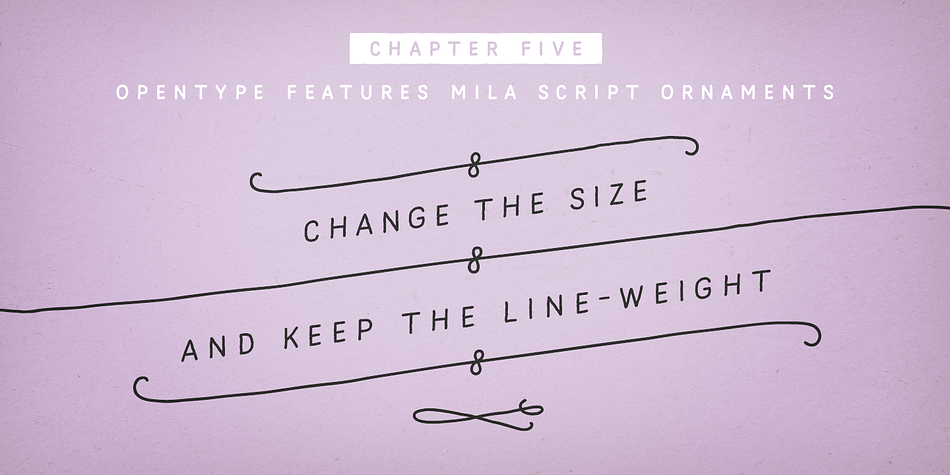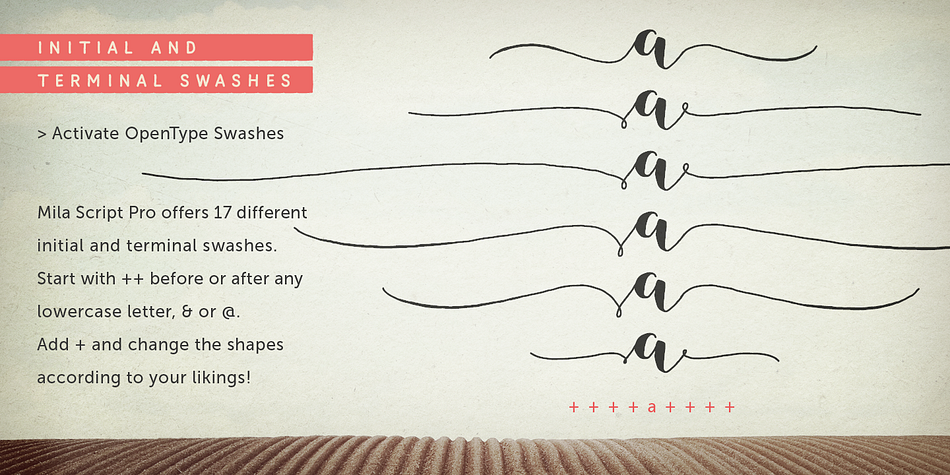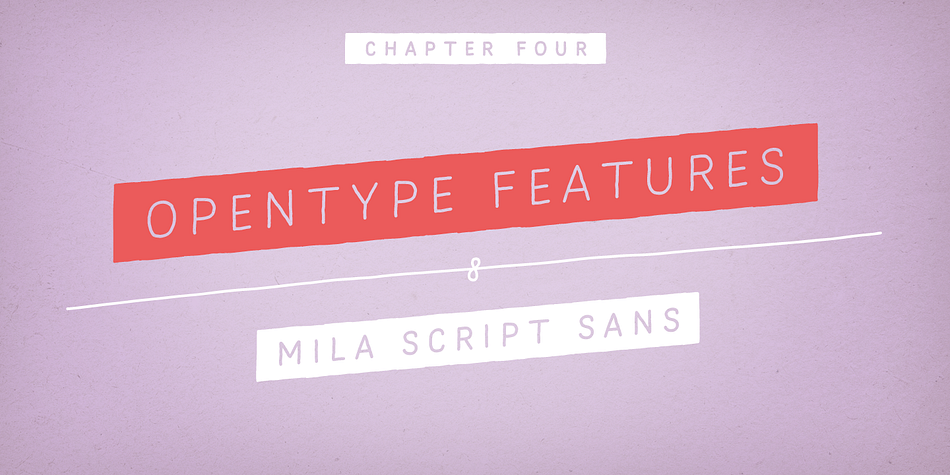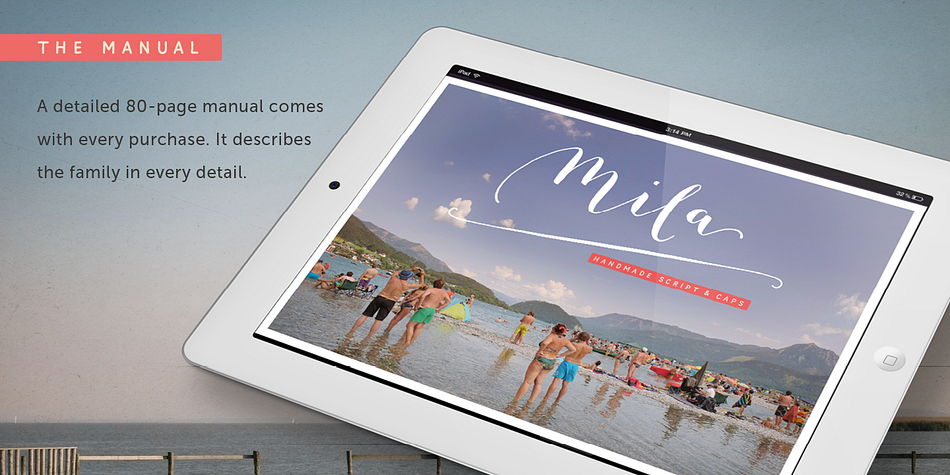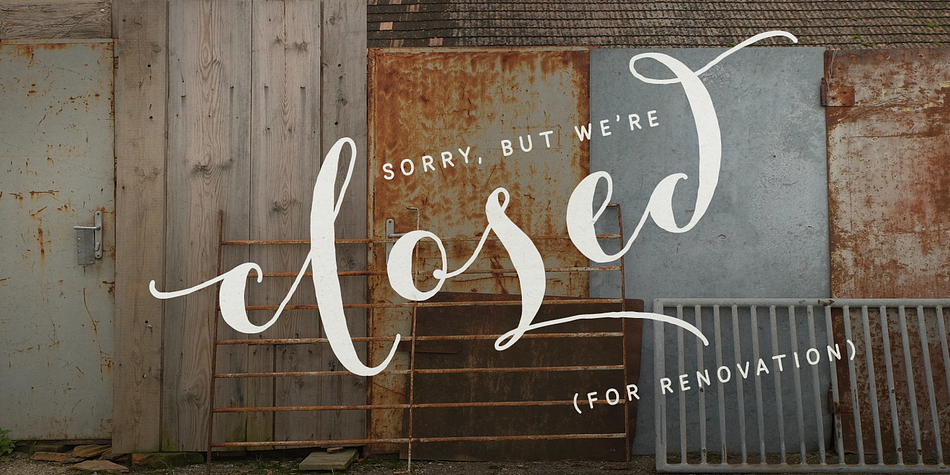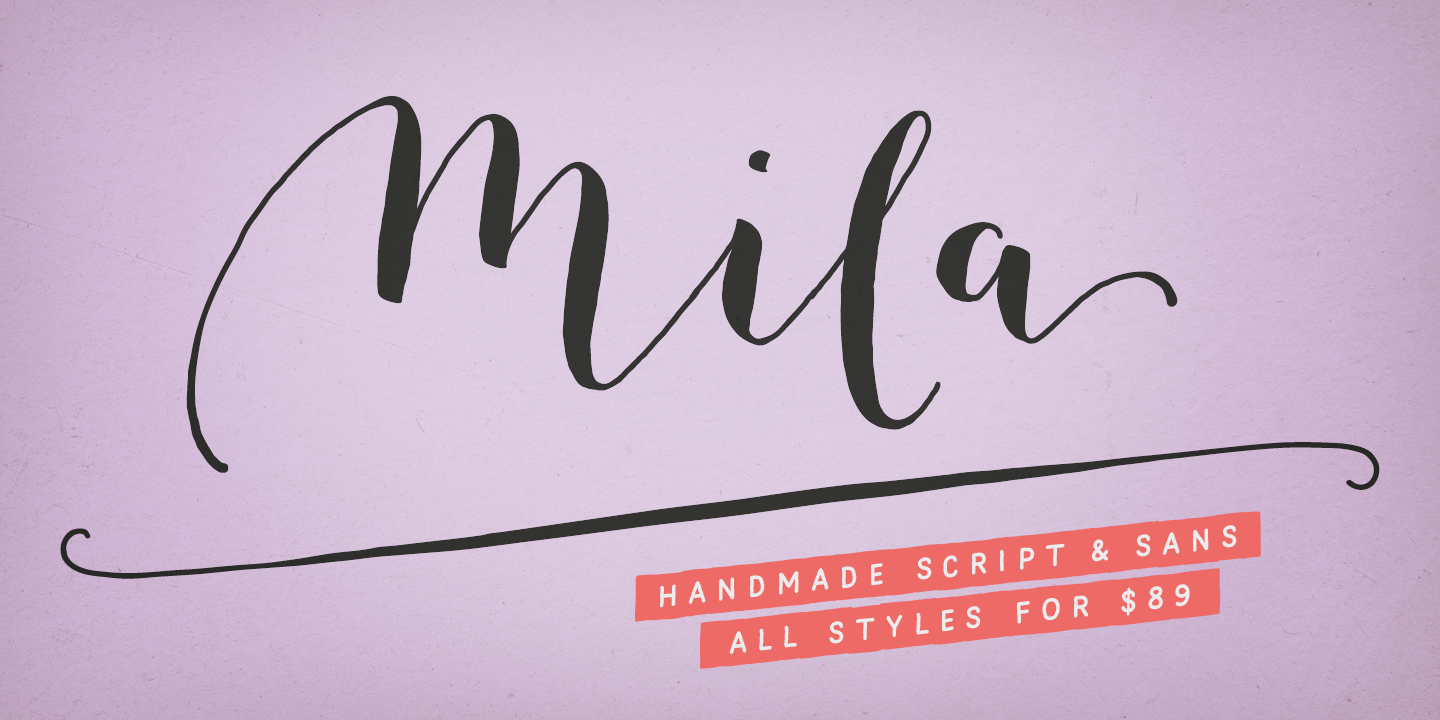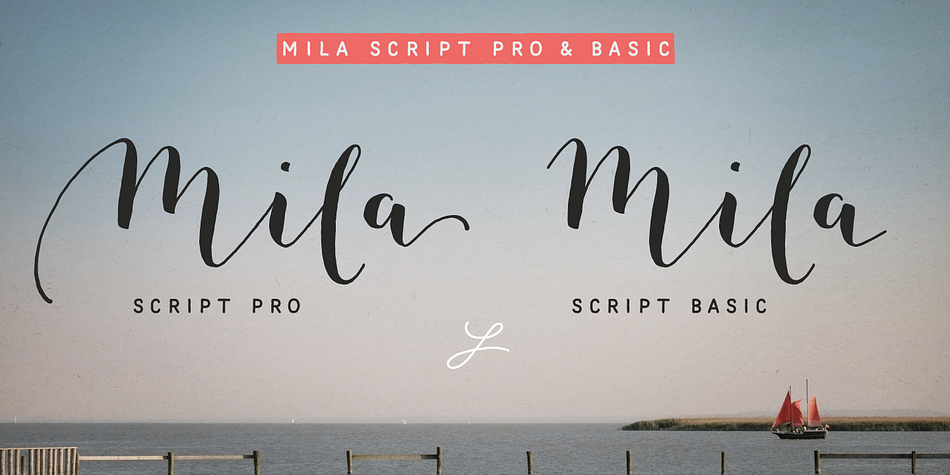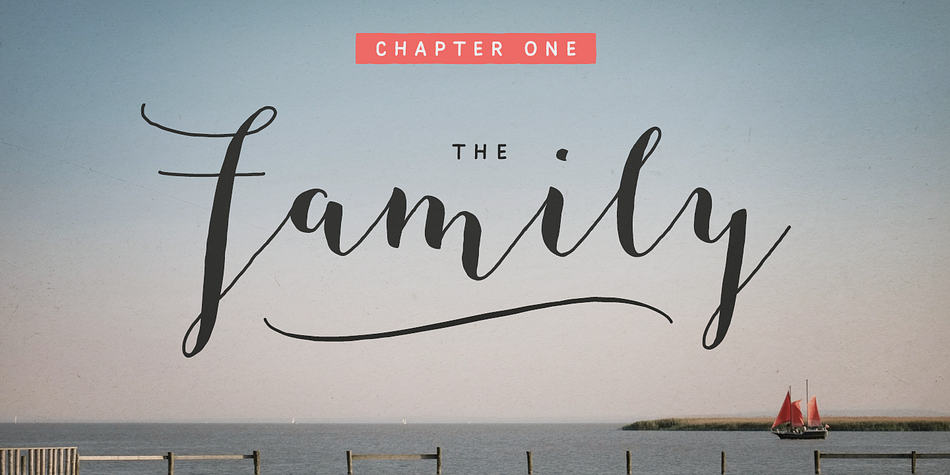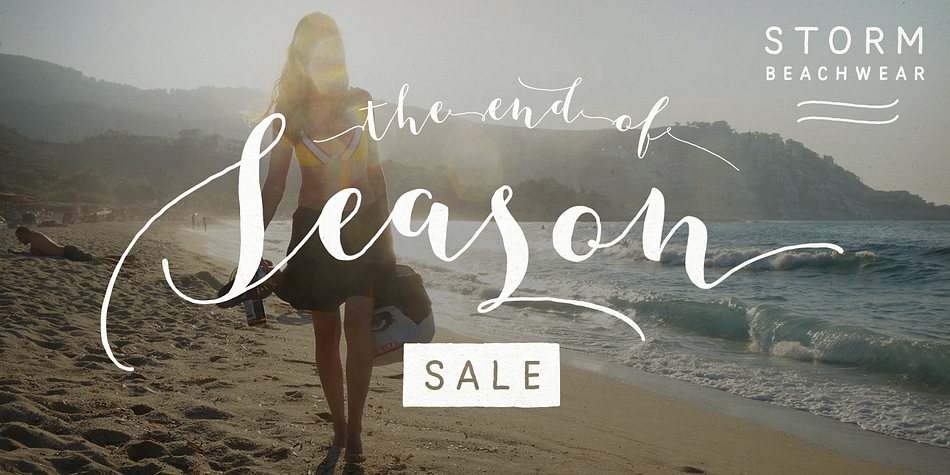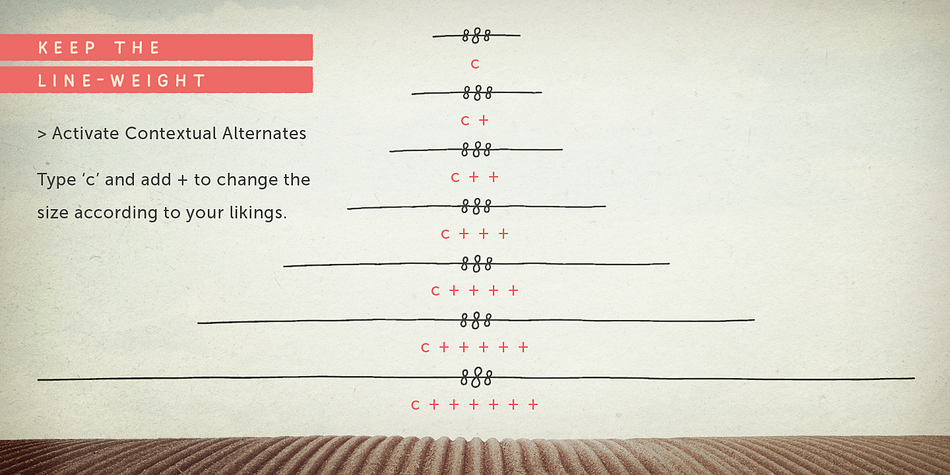
Designed by Georg Herold-Wildfellner, Mila Script Pro is a multiple classification font family. This typeface has six styles and was published by FaceType.
Mila Script Pro & Basic
Mila Script Pro is a handmade brush script with round and soft letterforms, a low x-height and jumping baseline. Smart OpenType features care about all letterforms and choose between connected and non-connected styles. AutomaticSwashControl adjusts the swashy letters to the available white space. It’s installed within Mila’s main features OpenType Contextual-Alternates, Swashes and Titling-Alternates. Switch one on and let Mila do the rest. Mila Script Pro offers 2600+ characters!
Mila Script Basic (900+ characters) offers all single features contained in OpenType Contextual-Alternates: subtle contextual swash alternates, positional forms, ligatures, connecting and non-connecting characters.
Mila Script Sans
Mila Script Sans is a hand-drawn/handwritten “all caps” in three different weights. Equal the line weights by choosing Light, Regular or Bold. Always keep it way smaller than Mila Script.
Mila Script Ornaments
Mila Script Ornaments contains 69 different swashes and symbols, all of them available in seven different sizes. Change the size and keep the line weight: activate Contextual Alternates, type a letter and add + to enlarge all swashes according to your likings!